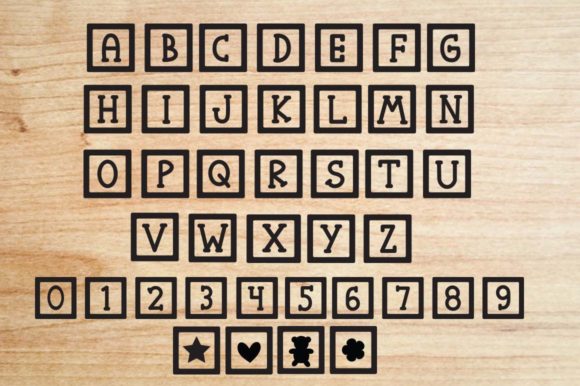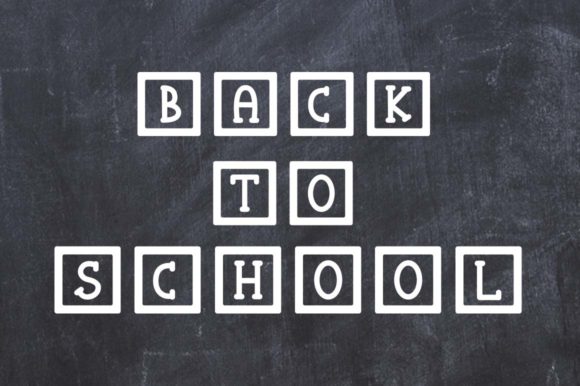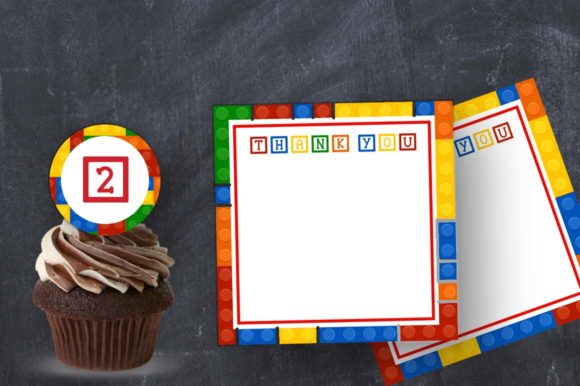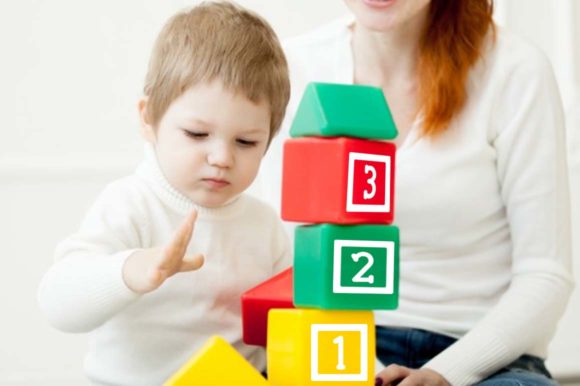
Introduction to Funny Blocs Font
Have you ever found yourself stuck in a creative rut, searching for that perfect design element to elevate your project? I know I have! It’s that moment when you’re brainstorming ideas for a themed birthday party or designing a fun learning exercise for kids, and you just can’t seem to find the right font. Well, I’m here to tell you that your search is over. Say hello to the Funny Blocs Font, a delightful dingbat typography that’s sure to bring a smile to your face and a touch of whimsy to your design.
This fun and playful font was inspired by the simplicity of cubes for children, making it the perfect addition to any creative project. With its high-quality design and transparent background, the Funny Blocs Font is a valuable resource for designers looking to add a personal touch to their work. And the best part? It’s free to download!
Key Features of Funny Blocs Font
- Unique, playful design that adds a humorous touch to any creative project, making it a standout design resource.
Honest Review: Funny Blocs Font
I recently stumbled upon the Funny Blocs Font, and I must say, it’s been a fun addition to my design resource collection. The font’s quirky and playful style makes it perfect for creative projects that require a lighthearted touch.
- Limited character set, which might not be suitable for projects requiring extensive typography.
- No bold or italic versions available, which could be a drawback for some designers.
Overall, I’m quite impressed with the Funny Blocs Font. While it may have some limitations, its unique style and high-quality design make it a valuable addition to any designer’s toolkit. If you’re looking for a fun and creative font to add some personality to your projects, the Funny Blocs Font is definitely worth checking out.
Introduction to Funny Blocs Font
The Funny Blocs Font is a unique design resource that adds a playful touch to any creative project. With its high quality and transparent background, it’s perfect for designers looking to elevate their work.
Tips for Getting the Most Out of Funny Blocs Font
To get the most out of the Funny Blocs Font, use it in creative and unexpected ways. Experiment with different font sizes, colors, and combinations to add a unique touch to your designs.
Alternatives to Funny Blocs Font
Pacifico is a high-quality, elegant script font perfect for creative projects that require a touch of sophistication. It features a transparent background and a beautiful, cursive design. This font is ideal for use in wedding invitations, quotes, and other design elements that need a romantic feel.
Compared to Funny Blocs Font, Pacifico has a more refined and elegant design, making it suitable for a wider range of creative projects. While Funny Blocs Font is great for casual, playful designs, Pacifico is better suited for more formal and high-end projects.
Great Vibes is a beautiful, hand-drawn font that is perfect for adding a touch of whimsy and fun to your design projects. It features a transparent background and a unique, artistic design that is sure to stand out. This font is ideal for use in social media graphics, advertisements, and other creative projects that need a playful feel.
Compared to Funny Blocs Font, Great Vibes has a more organic and hand-drawn feel, making it perfect for projects that need a personal touch. While Funny Blocs Font is great for bold, eye-catching designs, Great Vibes is better suited for more subtle and creative projects.